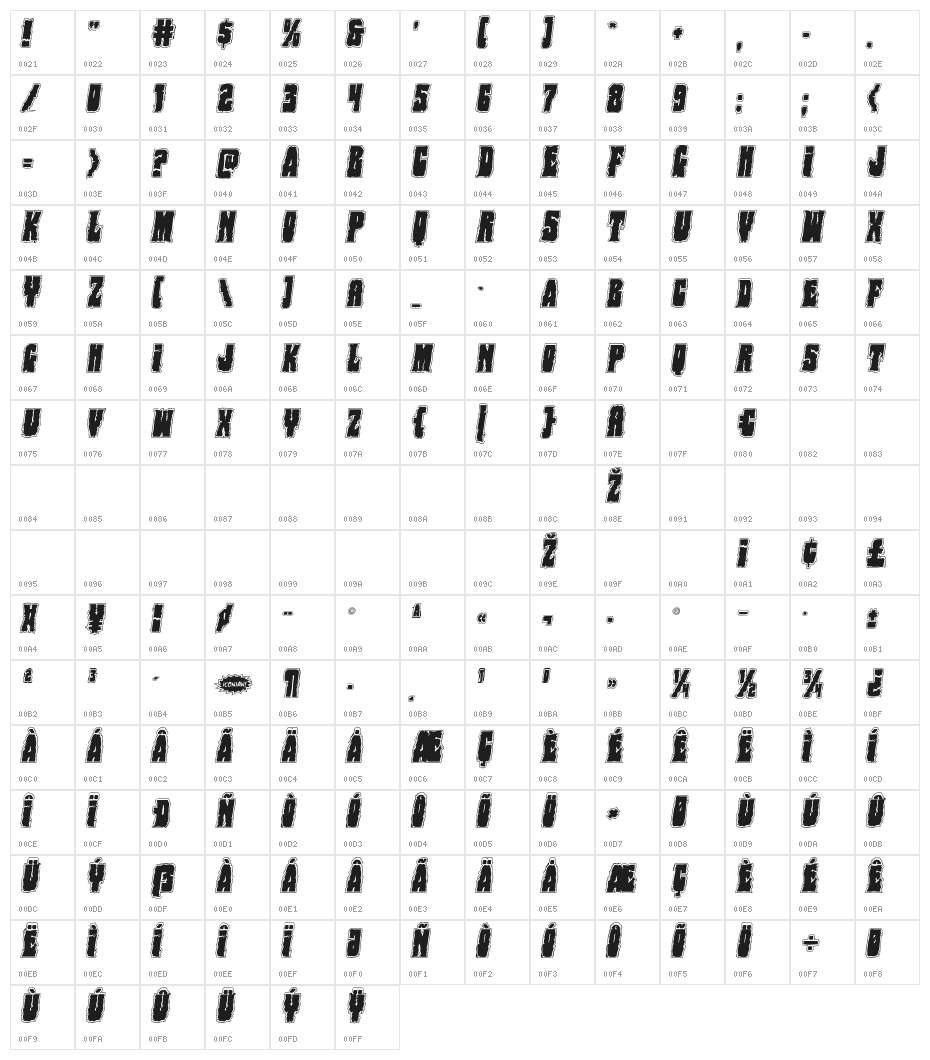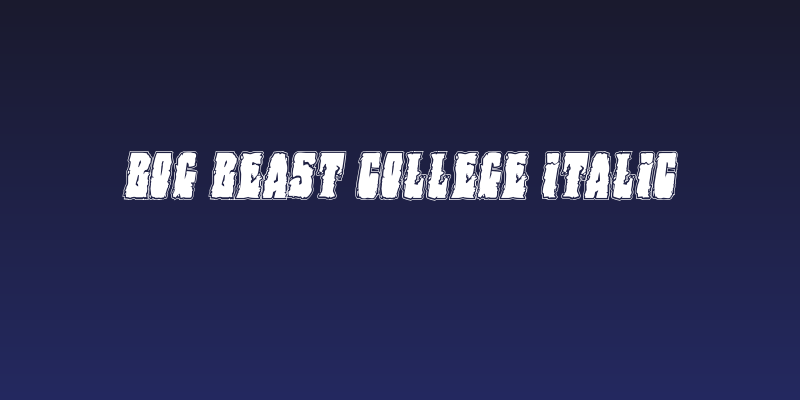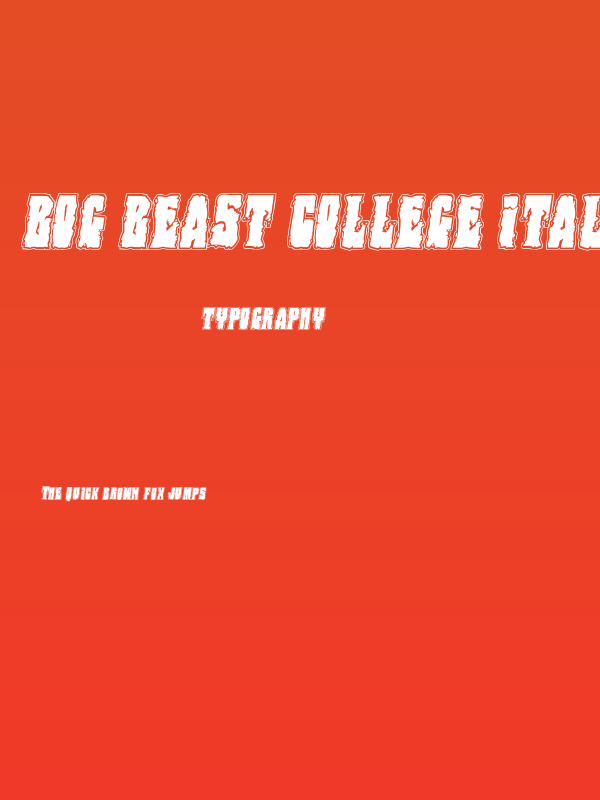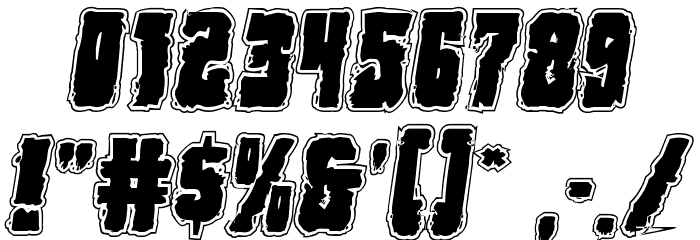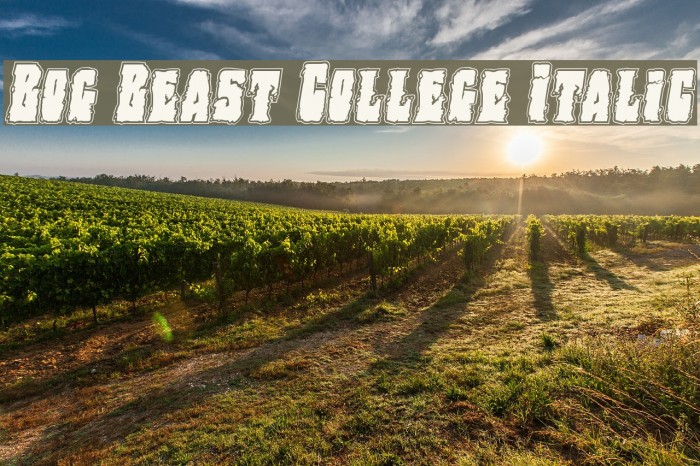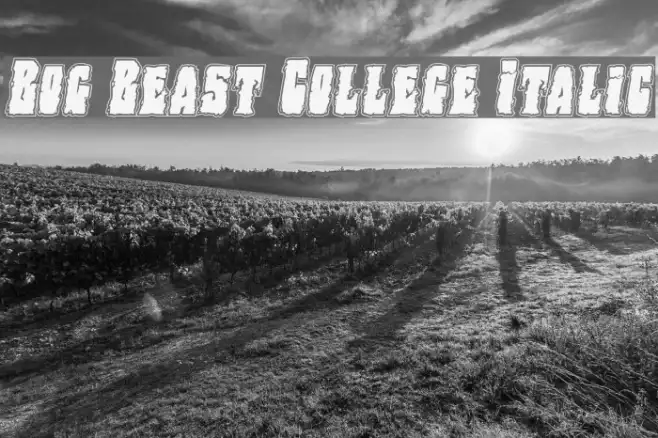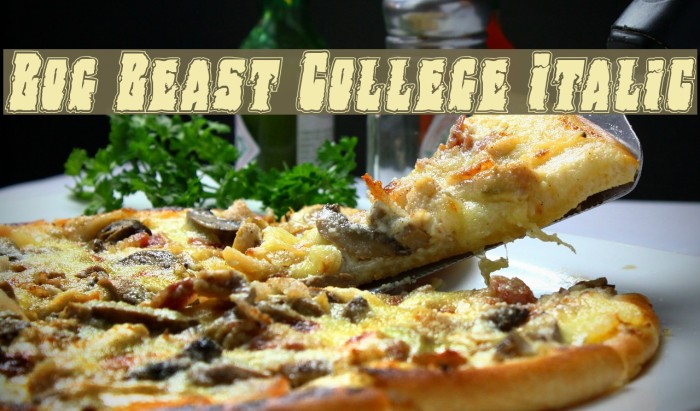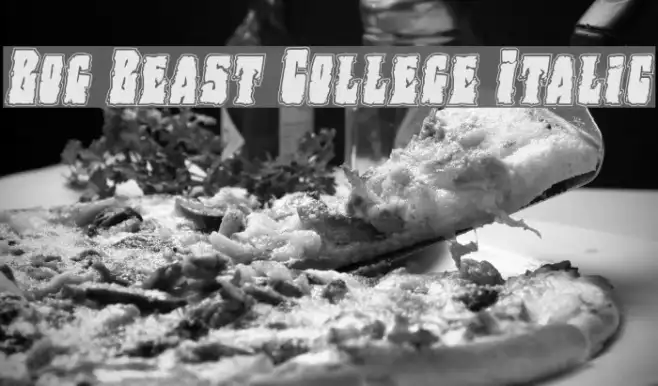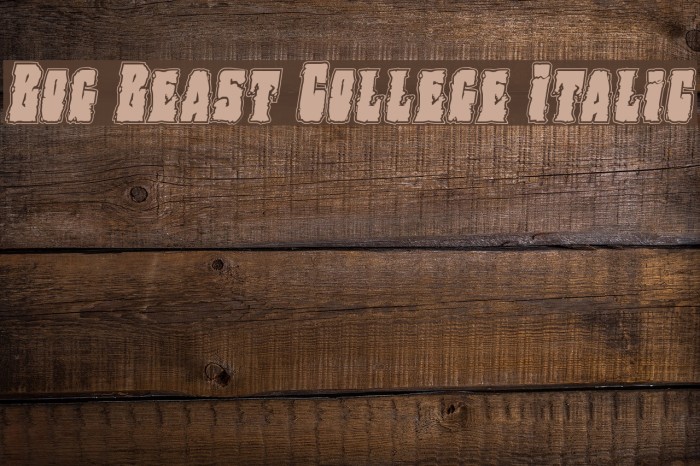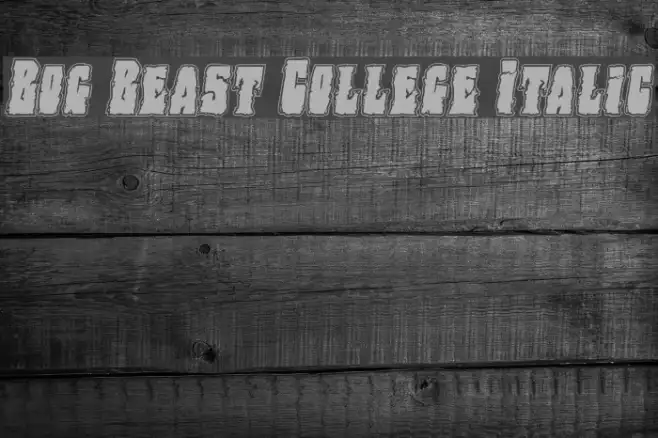
Bog Beast College Italic Font
Bog Beast College Italic Description
This font features a bold and rugged design with a distressed, textured appearance that gives it a unique, edgy look. The characters are heavily stylized with rough, jagged edges, creating a sense of movement and energy. The font is italicized, adding a dynamic slant to the letters, which enhances its bold and impactful presence. The uppercase and lowercase letters maintain a consistent style, with numbers and special characters following the same design principles. This font is ideal for projects that require a strong, attention-grabbing typeface with a rebellious or adventurous theme.
| Proposed Projects | Perfect for posters, album covers, video game graphics, and any project needing a bold, adventurous typeface. |